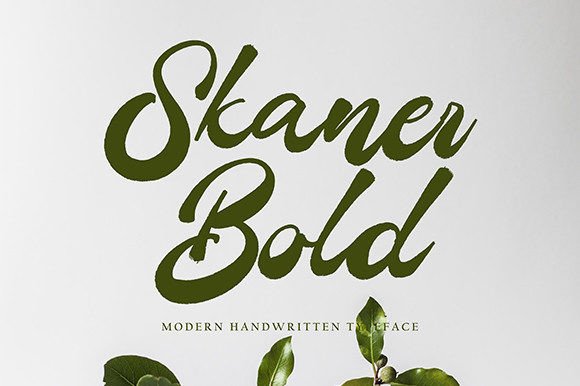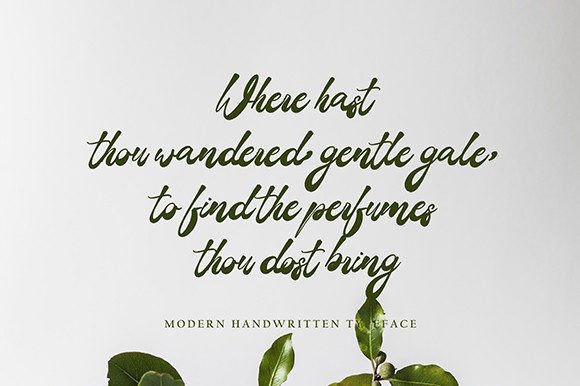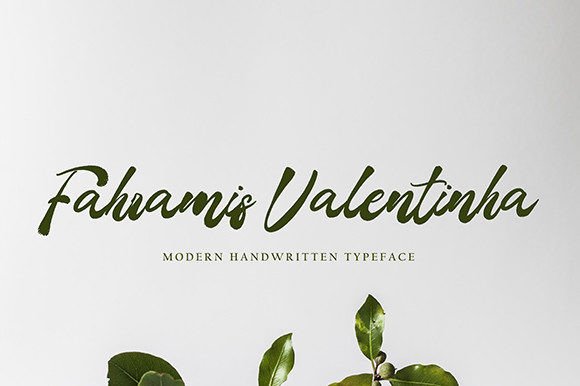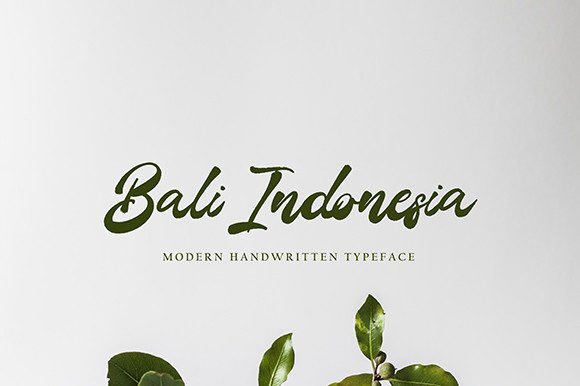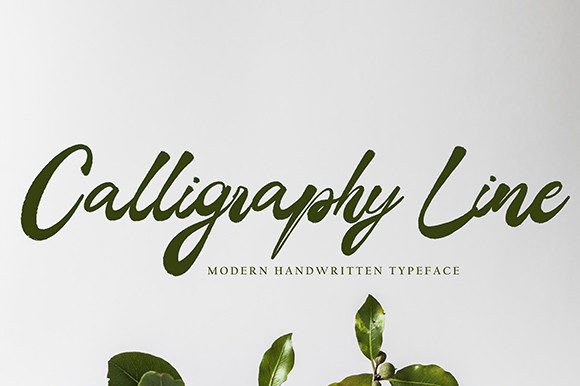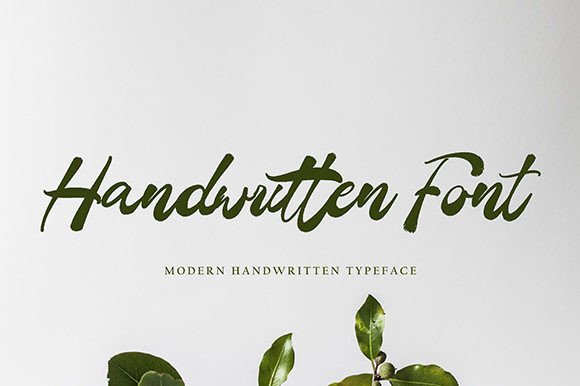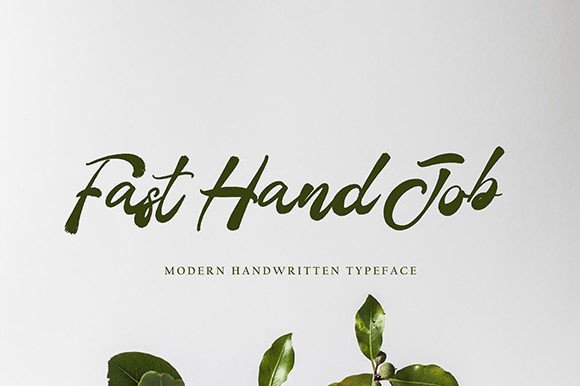
Skaner Bold Font
About Skaner Bold Font
Skaner Bold is a fresh and bold handwritten font perfect for many different projects such as quotes, logos, blog headers, posters, banding, letter, invitation, stationery, etc.